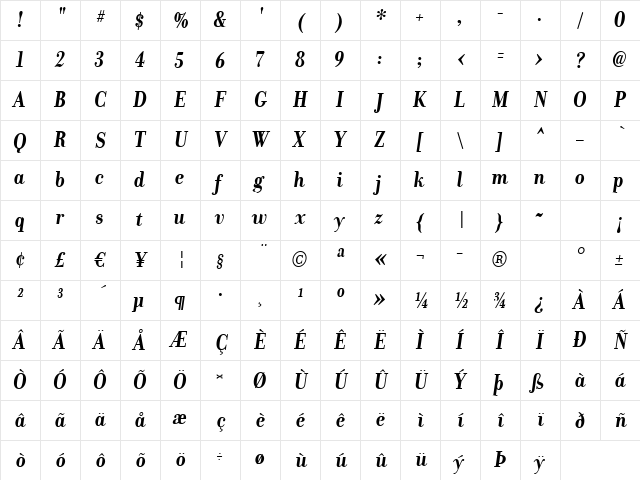
Donatora is a composed and adaptable typeface that performs quietly and consistently across a wide range of design contexts. The slanted form adds forward momentum and visual energy. Its bold stroke weight gives it real presence on the page.
Pro Tip: Use Donatora for emphasis, pull quotes, and subheadings where its slanted energy can add rhythm to the layout.